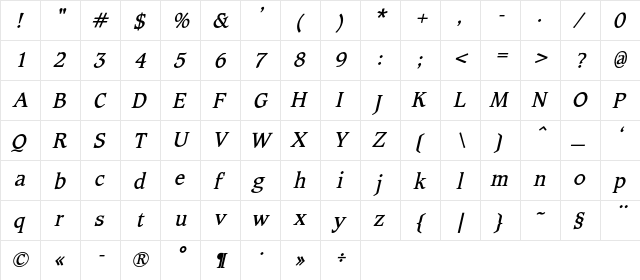
CotlinC Bold Italic Font Preview
Design Context for CotlinC Typeface
CotlinC takes a measured approach to typography — its balanced proportions and neutral character make it a reliable workhorse for both digital and print work. Its italic angle brings a sense of urgency and motion to the letterforms. The heavy weight commands attention and anchors typographic hierarchies.
Pro Tip: Try CotlinC for annotation and caption copy alongside an upright companion — the contrast in angle creates a dynamic but ordered typographic system.